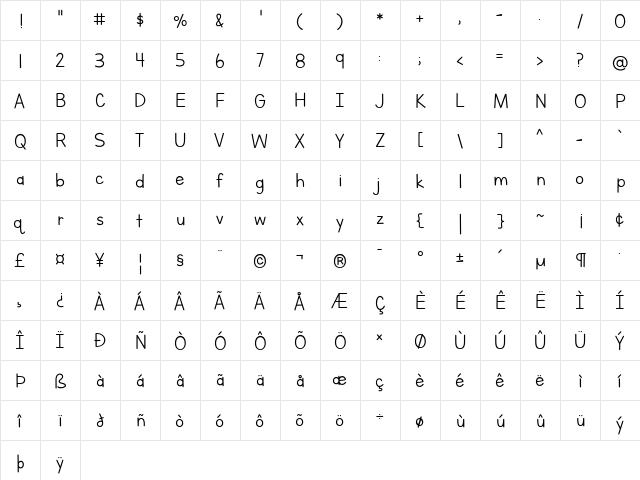
Letters for Learners Regular
Design Context for Letters for Learners Typeface
Letters for Learners offers clean, dependable letterforms without strong stylistic allegiance, making it a practical choice for designers who need flexibility.